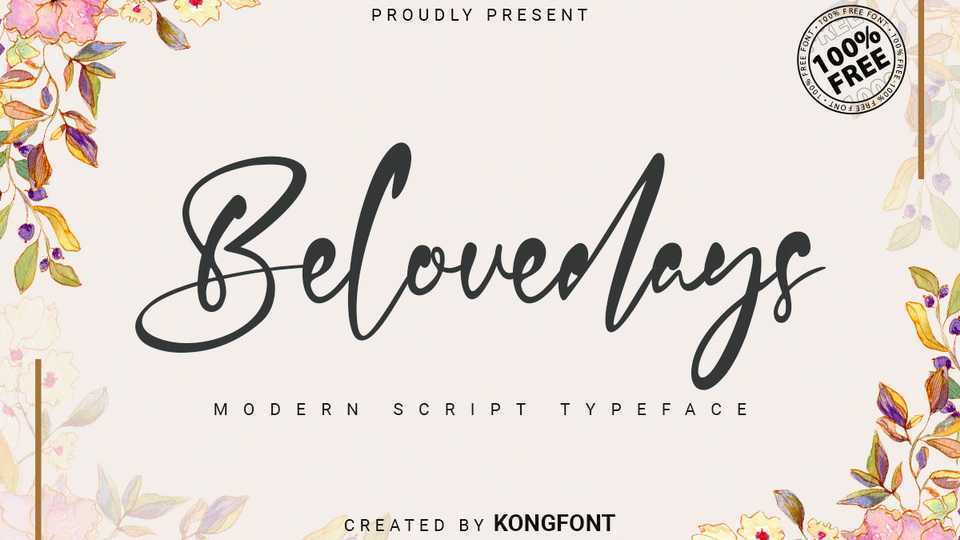
Download Belovedays font, a trendy and casual handwritten script typeface. Belovedays works great on various designs that require a relaxed and attractive touch.
Designer: Kong Font Studio